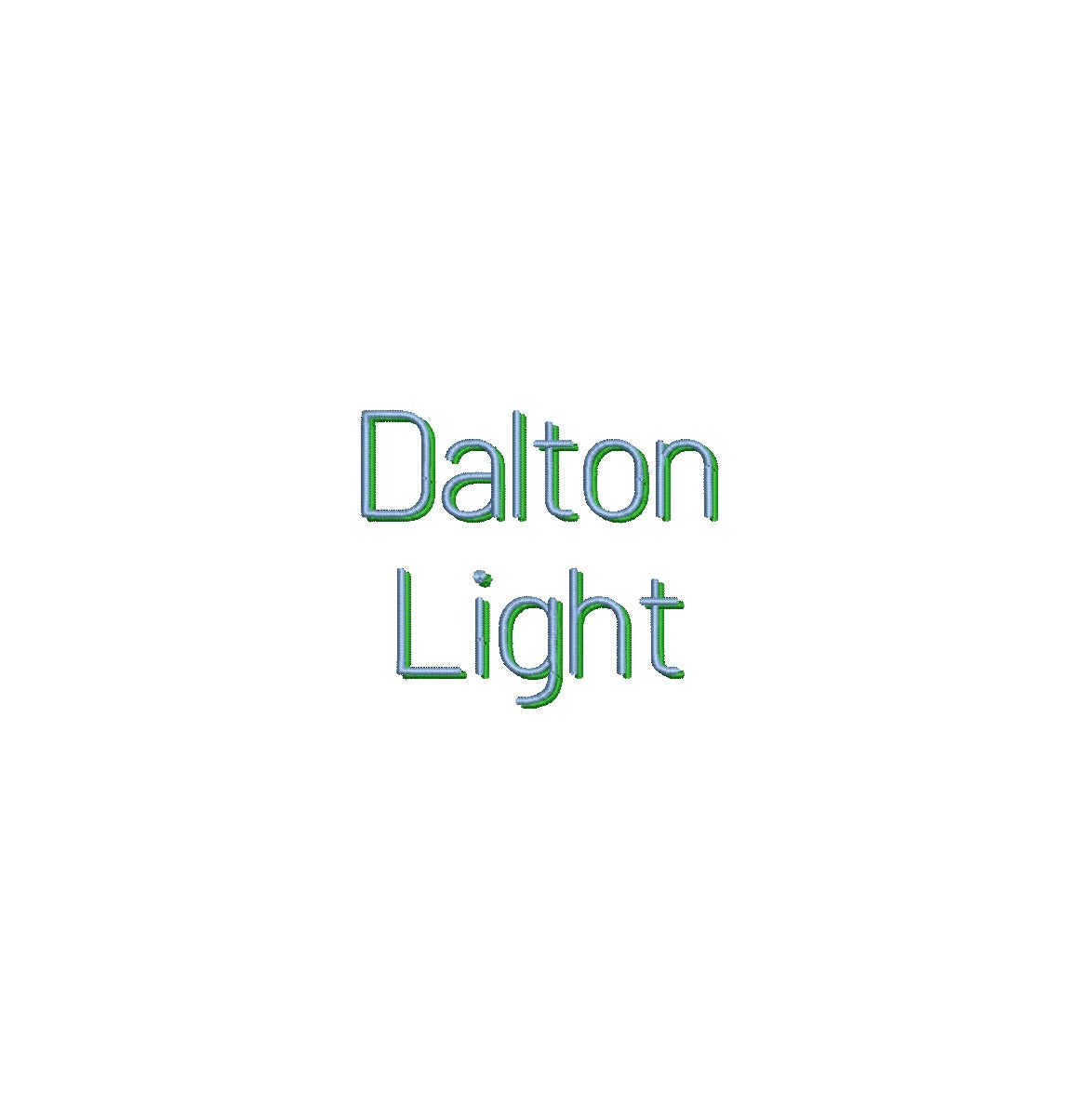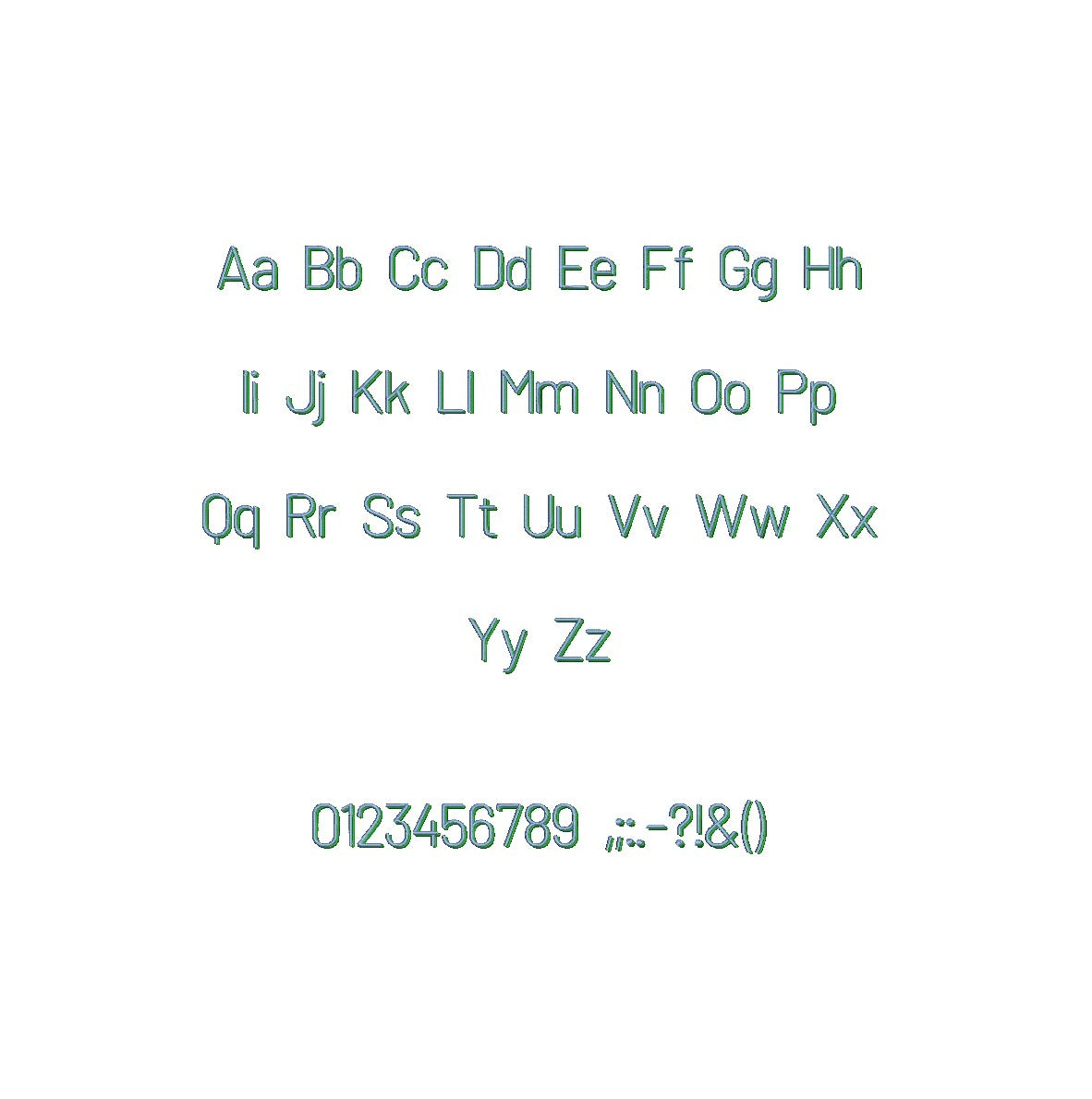
Elevate your designs with the sophisticated Dalton Light Shadow ESA font. Fully compatible with Wilcom Studio e4.5.6 and Hatch 3 versions and up, this font adds a touch of timeless charm and modern elegance to your projects. The delicate shadows and refined lines of this font create a captivating visual impact that sets your designs apart. Streamline your creative process and achieve flawless results by utilizing this font with industry-leading software. Upgrade your projects with the compatibility of Dalton Light Shadow ESA font and craft visuals that leave a lasting impression. Embrace creativity and refinement for your design journey today!